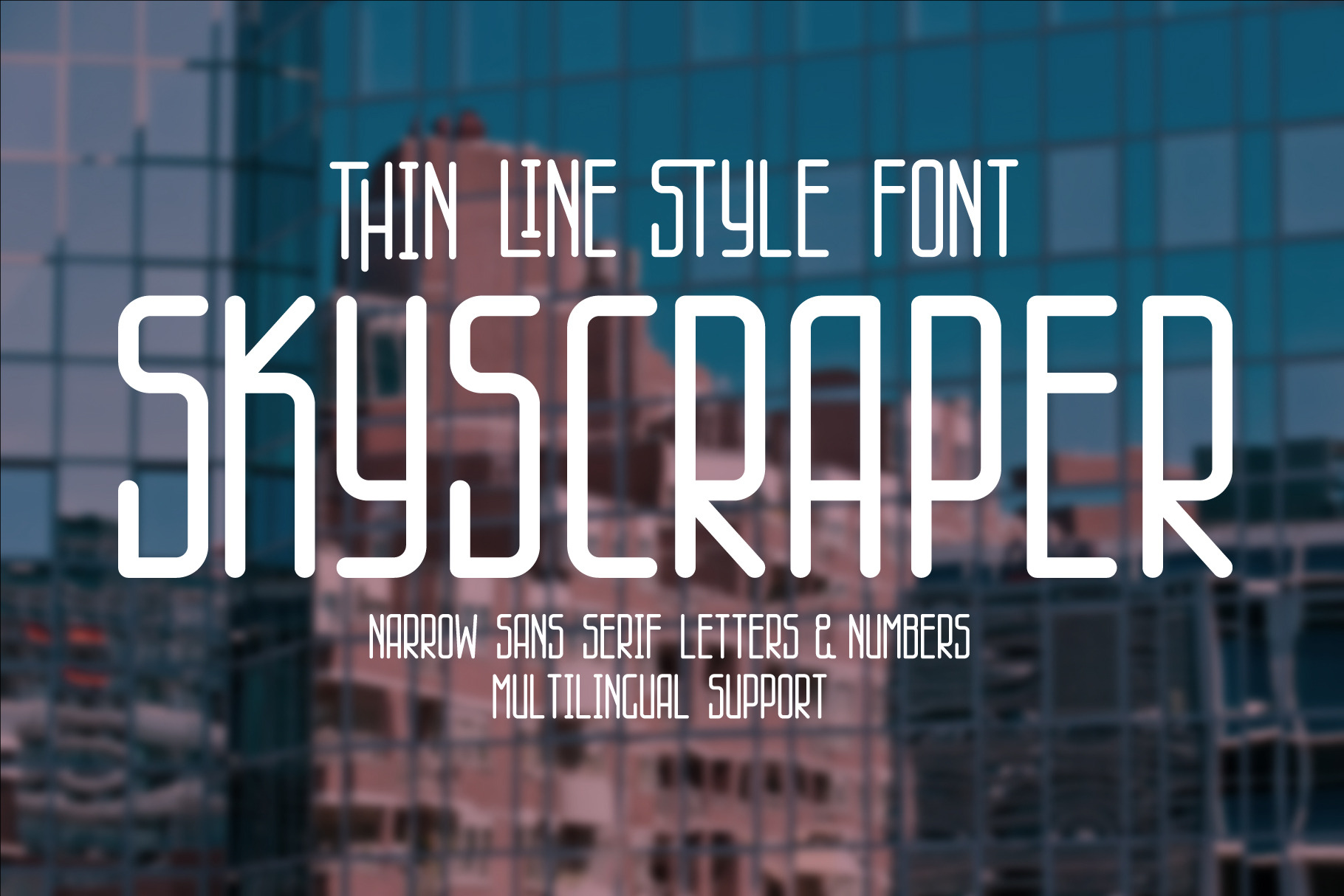
Skyscraper thin line style font.
Thin line style font. High slender letters with rounded ends. Simple and clean forms. Only uppercase letters here. This font is intended for use at large sizes for headings and titles. You need to print with the CAPS key pressed. The font contains ligatures. Multilingual support.